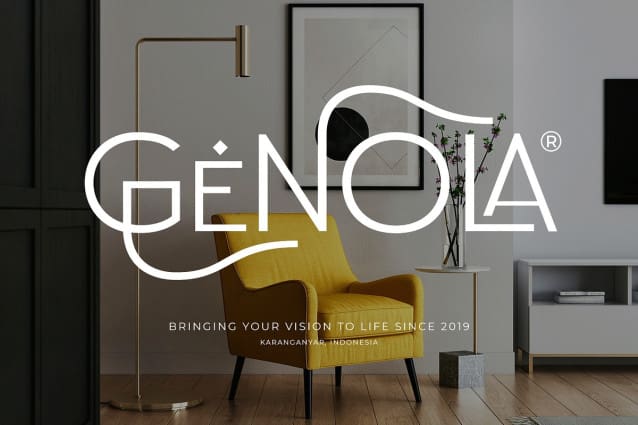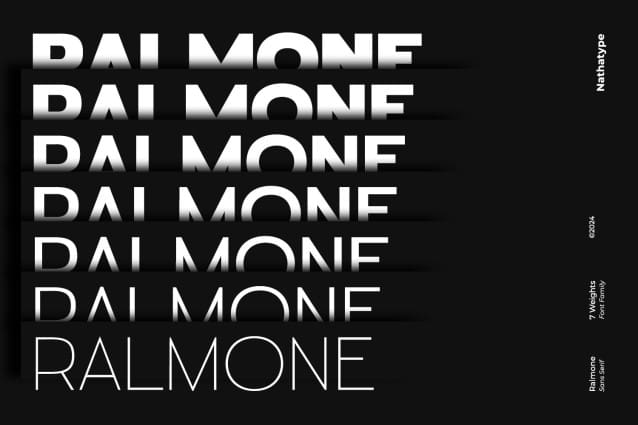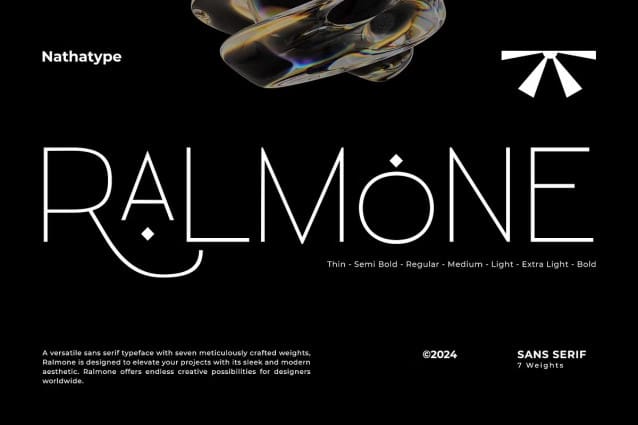
Ralmone Font
Ralmone Font is a versatile sans serif font family designed to offer a wide range of typographic possibilities. Crafted exclusively in uppercase, Ralmone exudes a sense of modernity and strength. With seven font weight choices available, ranging from Thin to Bold, Ralmone provides designers with the flexibility to create impactful compositions.
The clean lines and balanced proportions of Ralmone ensure clarity and readability across all weights, making it suitable for both print and digital media.